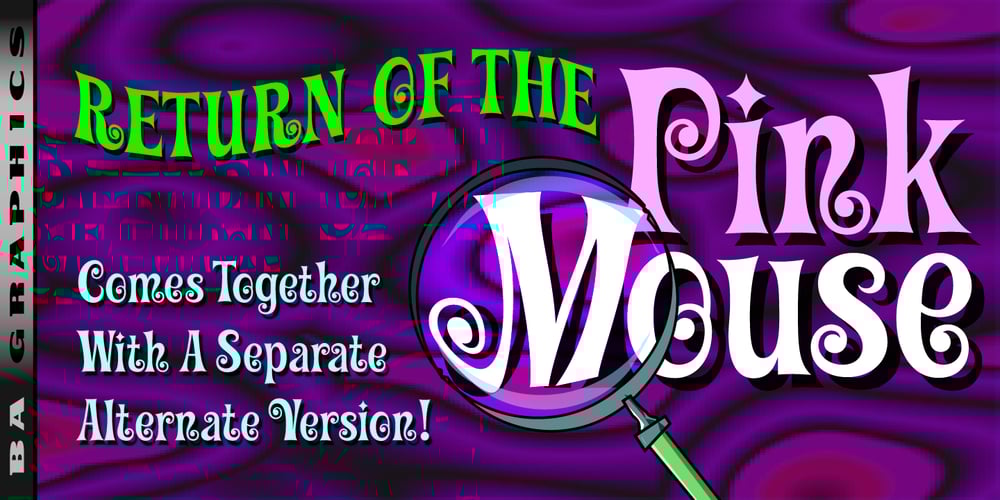
Pink Mouse
Pink Mouse font
Pink Mouse Font Family was designed by Bob Alonso and published by BA Graphics. Pink Mouse contains 2 styles and family package options. A 60s, 70s revival this curled casual latin brings back that great look. The font comes with an alternate version which can be used as a separate font or you can mix and match the two.